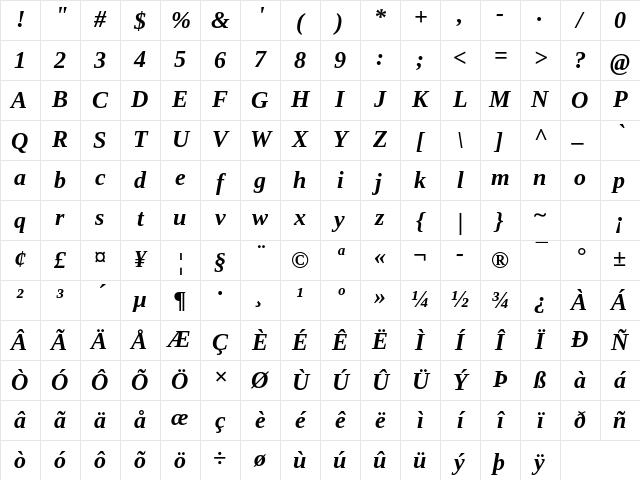
Tinos Nerd Font Bold Italic
Foundry: Monotype Imaging Inc.
Designer: Steve Matteson
Tinos Nerd Font Family
Design Context for Tinos Nerd Font
Tinos Nerd Font is a composed and adaptable typeface that performs quietly and consistently across a wide range of design contexts. The slanted form adds forward momentum and visual energy. Its bold stroke weight gives it real presence on the page.
Pro Tip: Use Tinos Nerd Font for emphasis, pull quotes, and subheadings where its slanted energy can add rhythm to the layout.